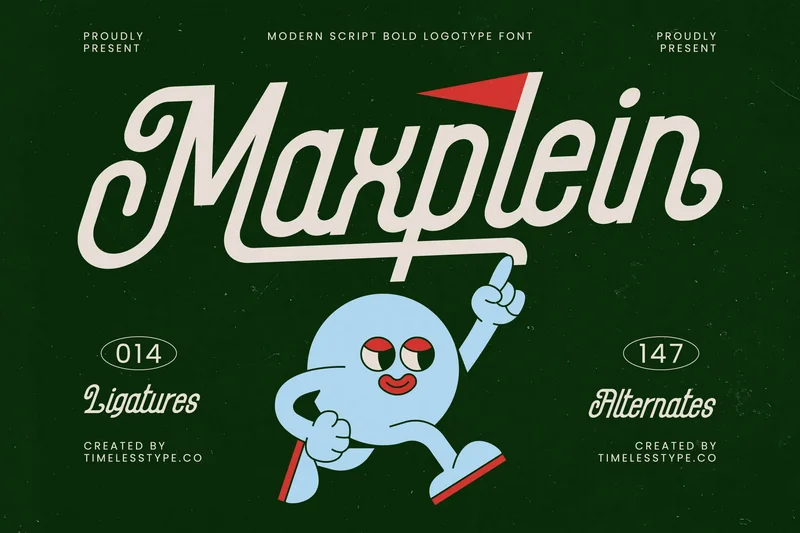
Maxplein – Modern Script Bold Logotype Font
Maxplein is a bold modern script logotype font inspired by retro sign-painting aesthetics, smooth athletic curves, and energetic vintage branding. With its confident slanted strokes and playful extended swashes, Maxplein brings a dynamic and stylish personality to every project—perfect for sports branding, retro packaging, signage, poster headlines, and nostalgic logo designs.
Featuring 14 stylish ligatures and an impressive 147 alternates, this font gives you unlimited freedom to craft expressive custom logotypes with authentic hand-painted charm. Whether you’re going for a bold retro vibe or a polished modern script look, Maxplein delivers high-quality versatility for standout visual identities.